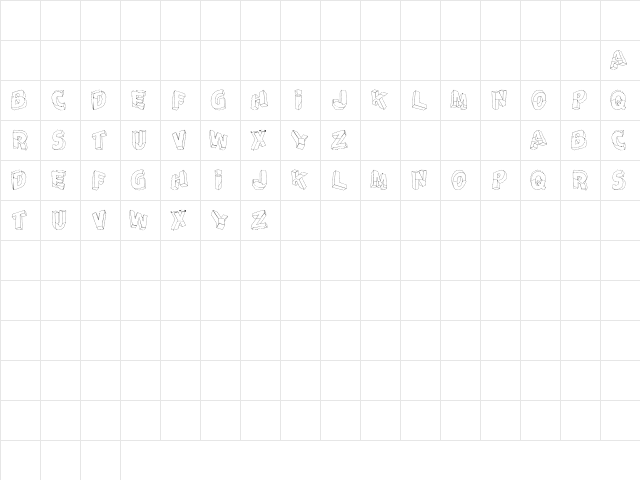
Perspectivo Dis tfb Regular
Designer: kaiserzharkhan
Design Context for Perspectivo Dis tfb
Perspectivo Dis tfb is a composed and adaptable typeface that performs quietly and consistently across a wide range of design contexts.